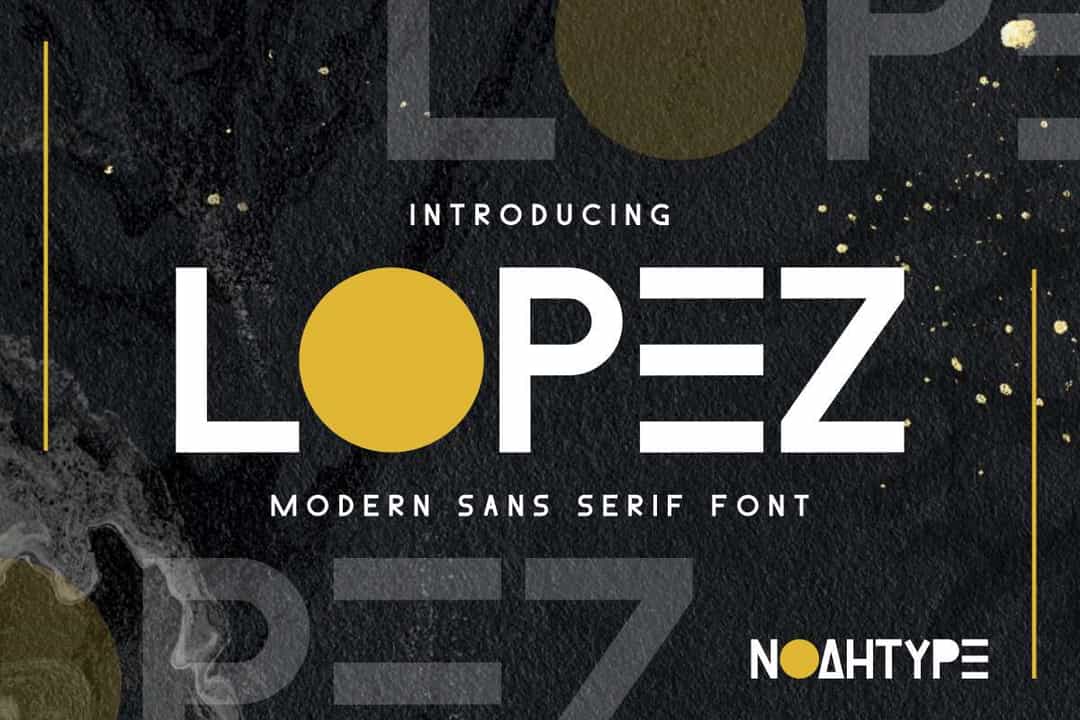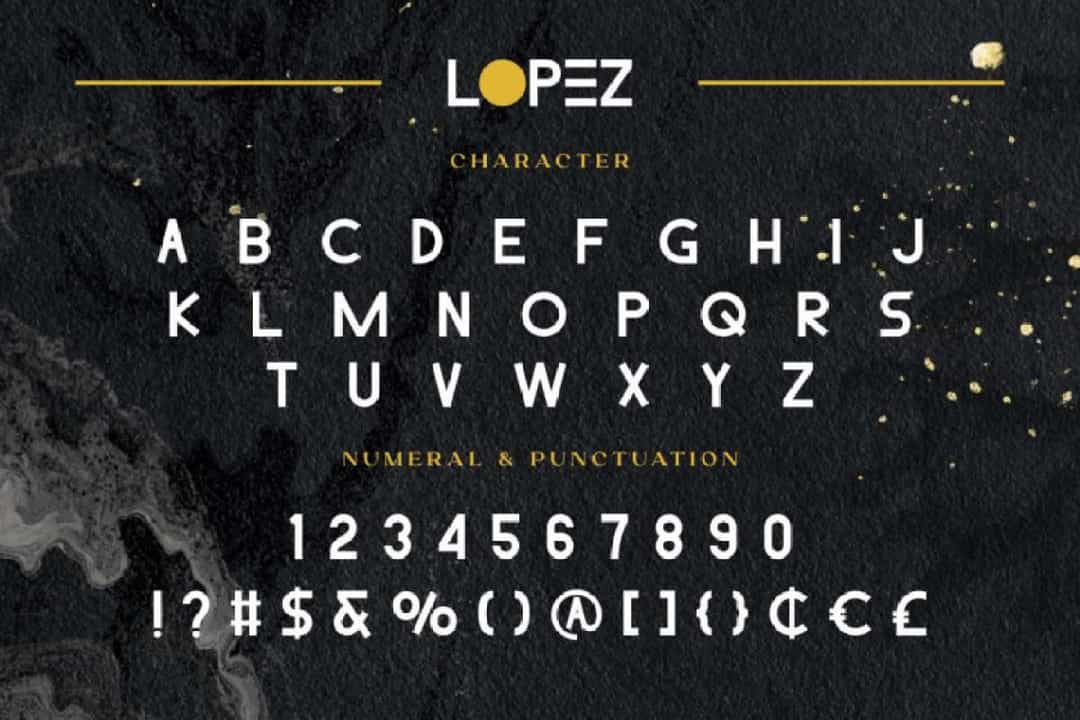
Lopez Font is an innovative modern sans serif typeface designed by NoahType that will bring elegance and sophistication to any project, as well as keeping up with those distinct designs! This striking sans serif font stands out from others by offering striking and sophisticated character – ideal for headlines websites magazines posters and banners!